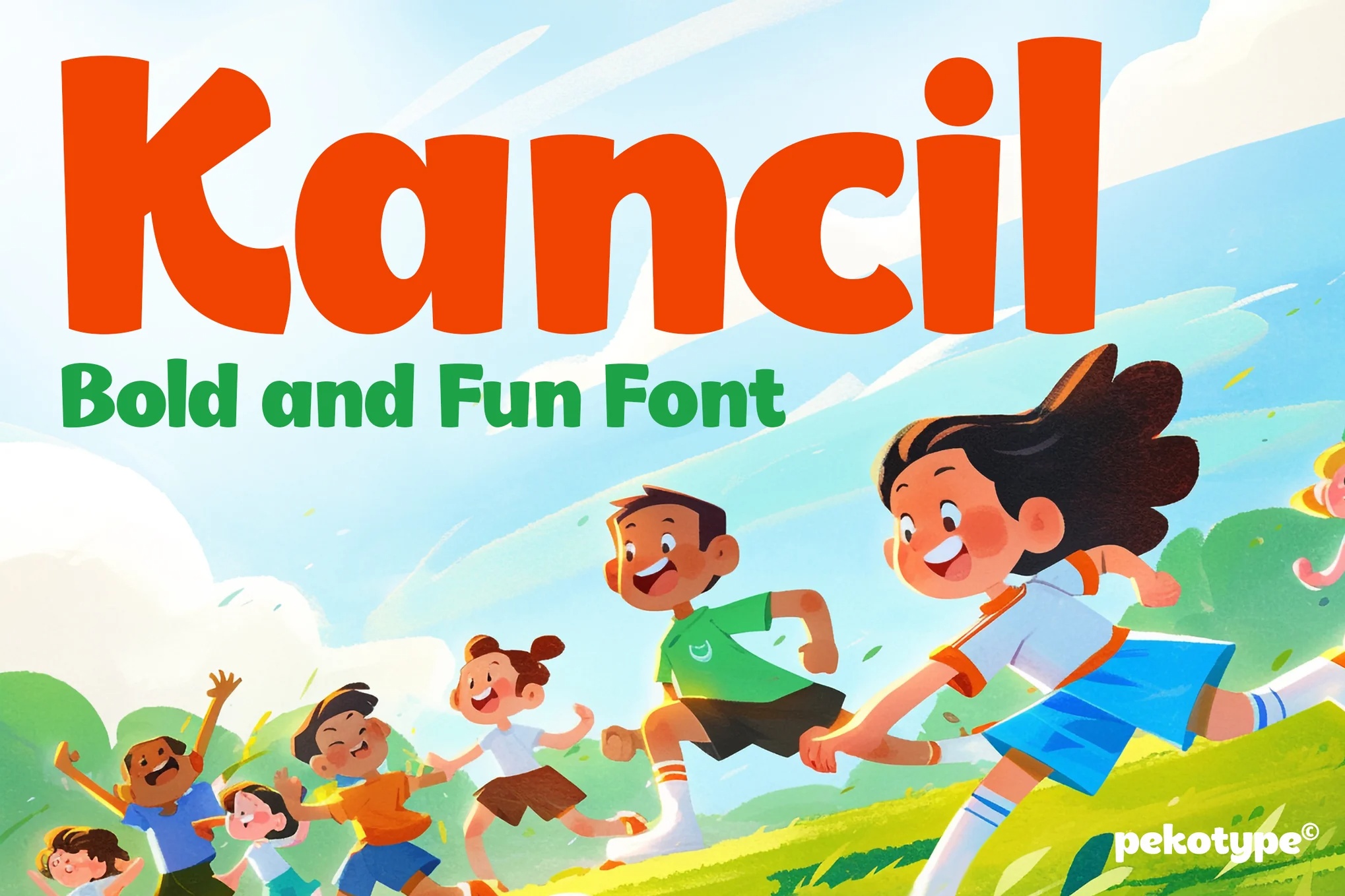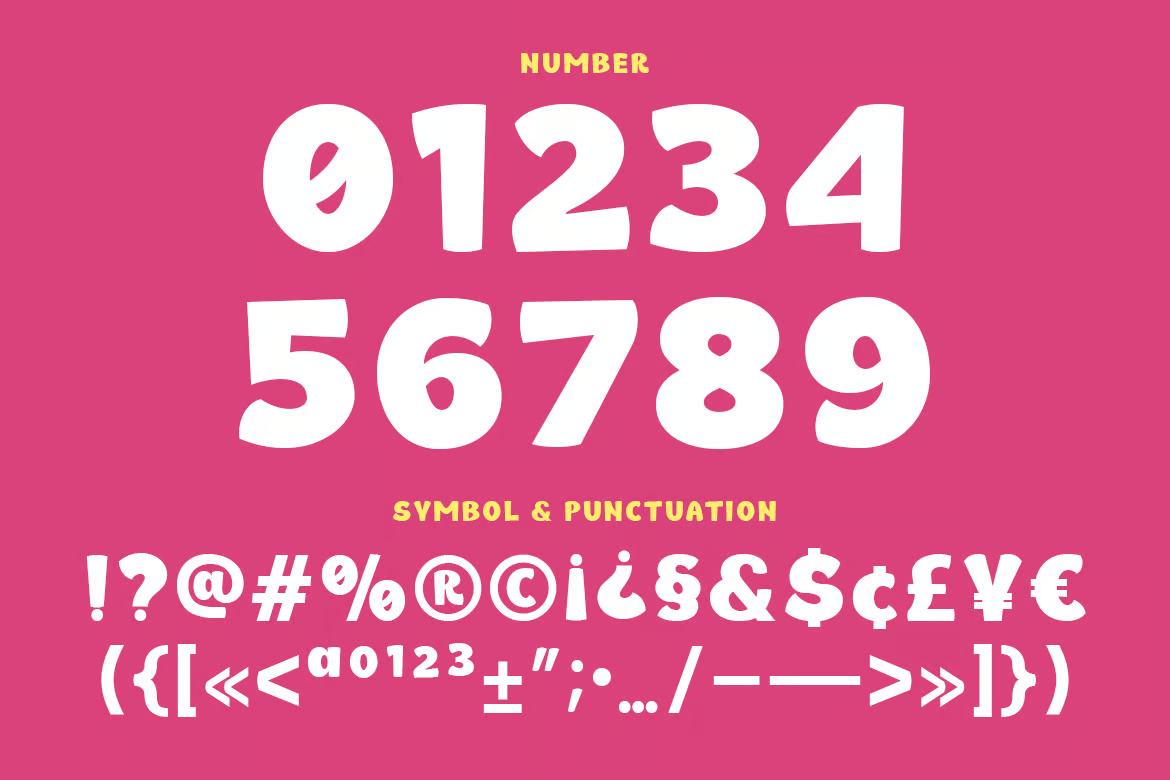
Introducing KANCIL, a bold and playful display font that adds energy, character, and a touch of whimsy to your design projects. Featuring a modern sans-serif style with eye-catching curves and thick letterforms, KANCIL effortlessly balances boldness with creativity, making it the perfect choice for everything from branding to posters, social media graphics, headlines, and more.
Its unique and fun design ensures that it stands out, helping your projects grab attention and leave a lasting impression. Whether you’re designing for a youth-focused brand, a dynamic event, or a creative campaign, KANCIL’s versatility will bring your vision to life with flair.
Kancil Bold and Fun Sans-Serif Font